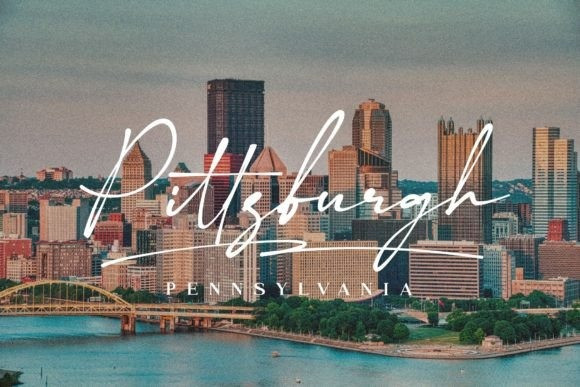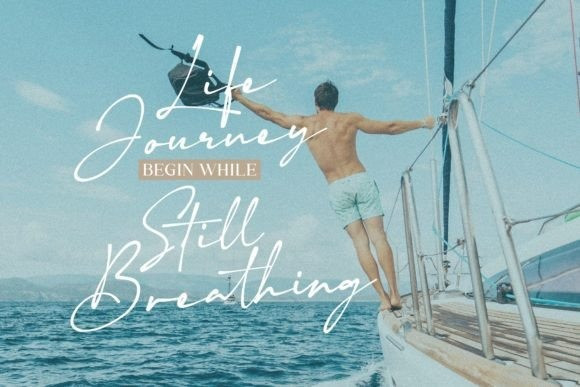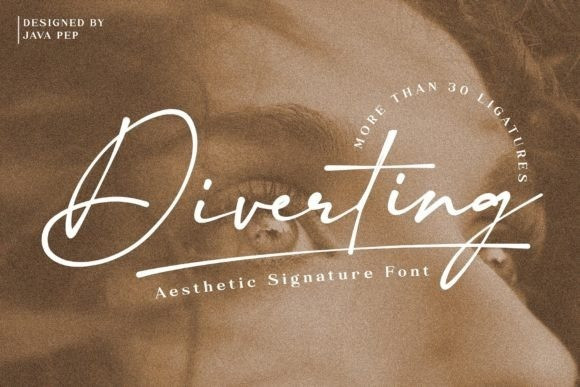
Diverting Handwritten Font
Diverting Handwritten Font is a stylish and aesthetically pleasing handwritten script font. It has a classy, elegant, and modern look that can be used for logos, branding, invitations, stationery, wedding designs, social media posts, and much more!